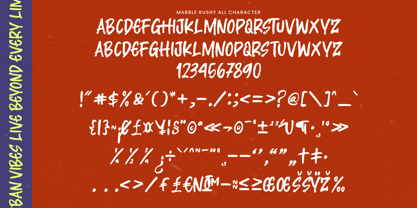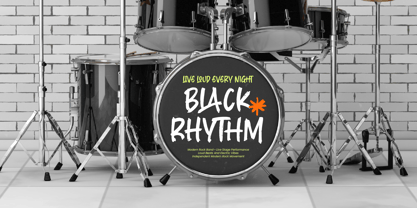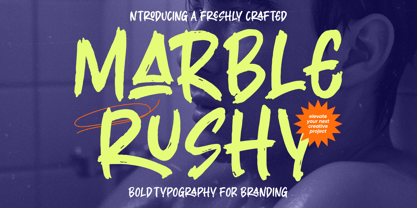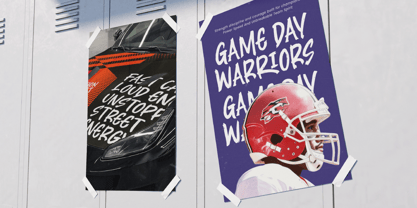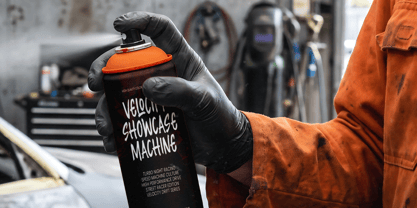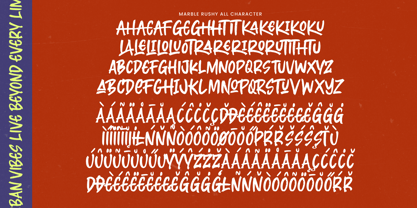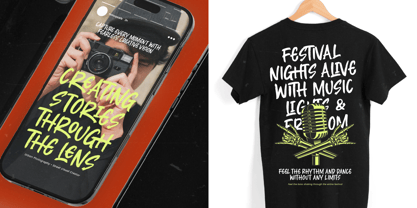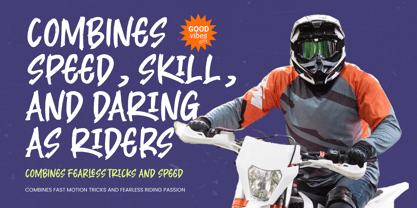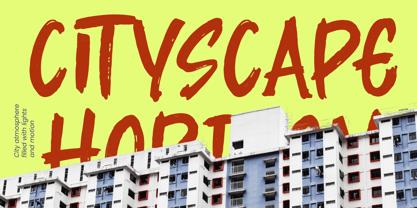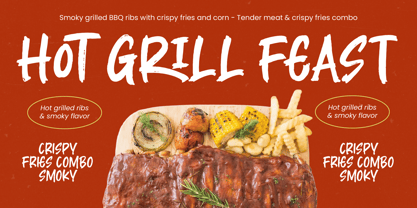
Marble Rushy
by Letterena Studios
The Marble Rushy Font Family was designed by Heru Utama Putra and published by Letterena Studios. Marble Rushy contains 2 styles and family package options. More about this family
Unleash raw energy and urban grit with the Marble Rushy - Allcaps Brush Typeface, a font designed to command immediate attention. This high-impact brush font features authentic hand-drawn strokes and a bold aesthetic that captures the essence of street culture and modern motion. Its rugged texture and energetic letterforms ensure that every word vibrates with life, making it the premier choice for designers seeking a contemporary edge in their visual communications.
Engineered for creative flexibility, the Marble Rushy - Allcaps Brush Typeface boasts a massive library of 422 glyphs, including 26 ligatures and 61 alternates. These professional-grade Opentype features allow for a truly customized typographic look, preventing repetitive patterns and maintaining a natural, handcrafted feel. Whether you are crafting a loud headline or a signature logo, this typeface provides the creative versatility needed to produce standout professional designs.